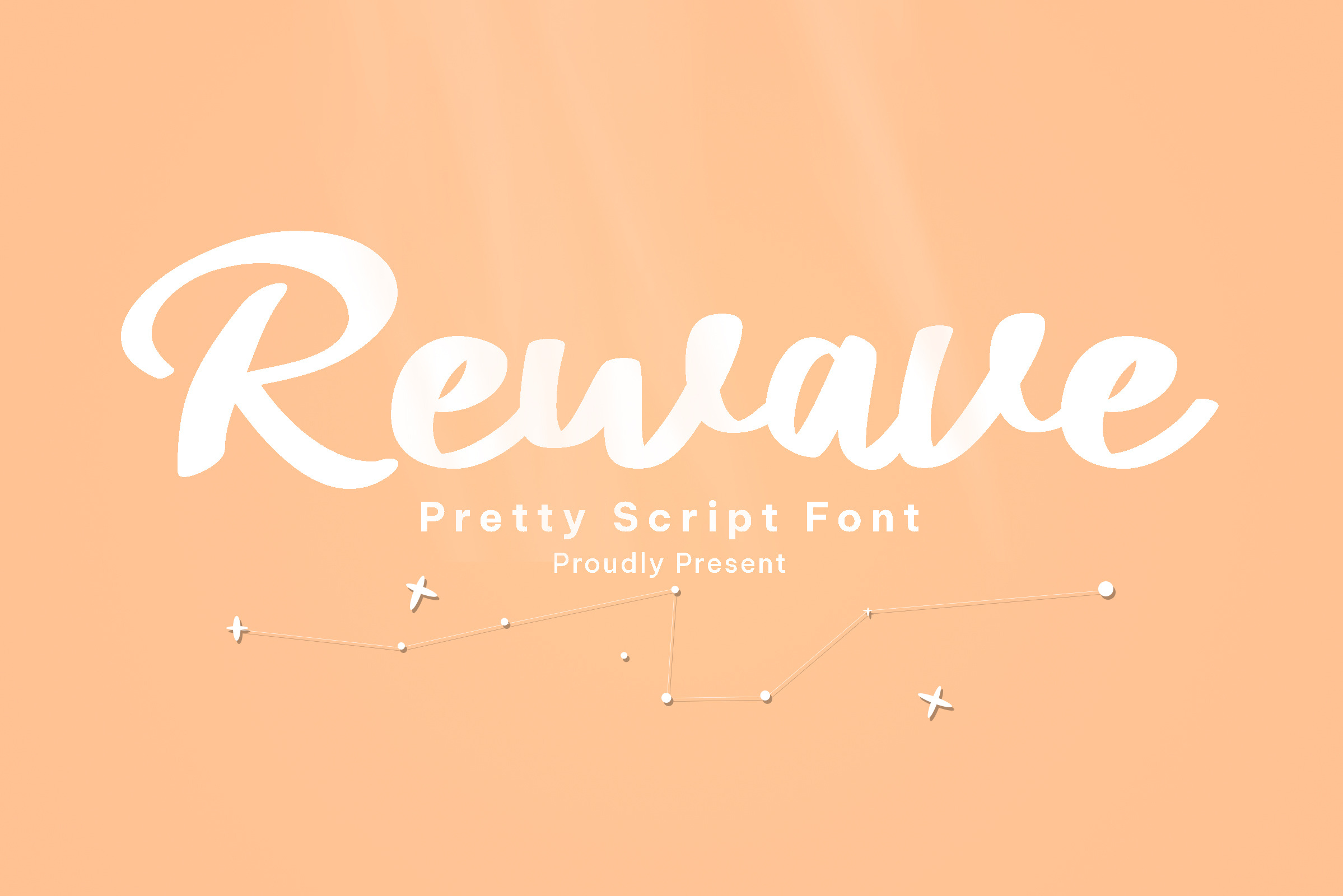
Rewave - Pretty Script Font
Rewave is modern, friendly, cool, trendy, simple, and elegant handwritten script font. Rewave is beautiful duo font for design with elegant and lovely vibes, such as lettered or lettering design, wedding, invitation, stickers, branding, cards, birthday, t-shirt design, logo design, and others. This font is PUA encoded which means you can access all of the glyphs and alternates with ease! (please type the preview to see if I have what you need!)